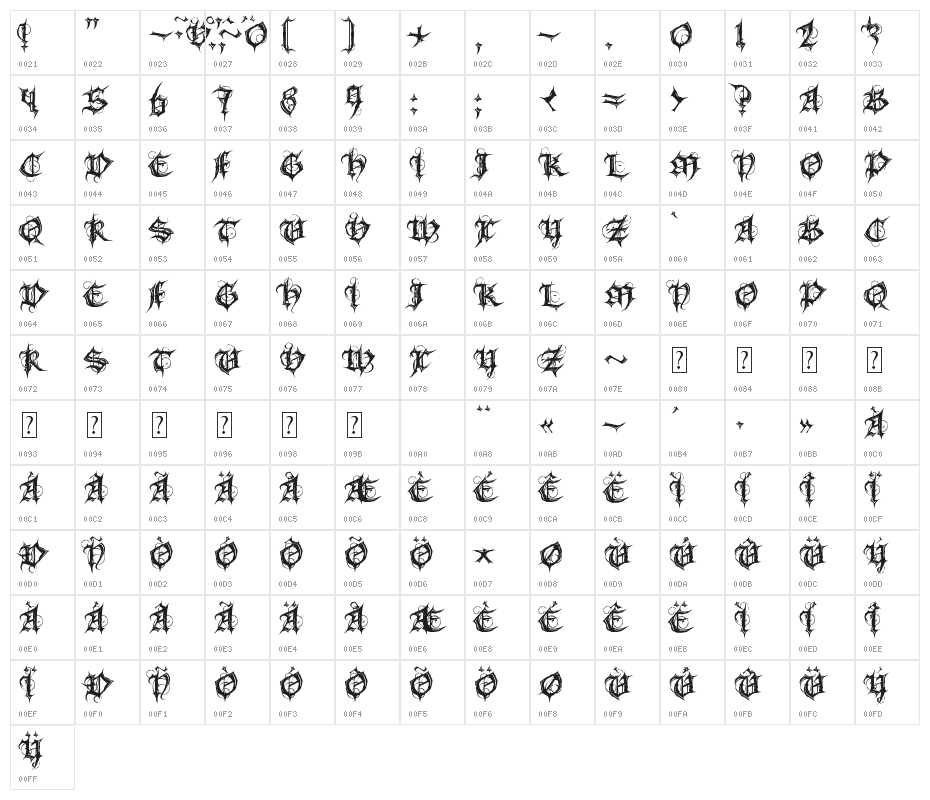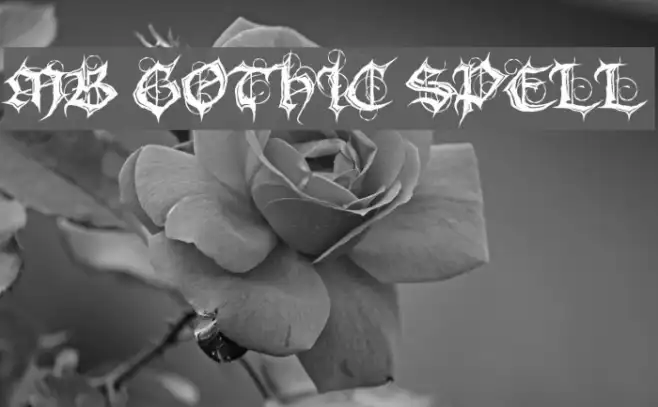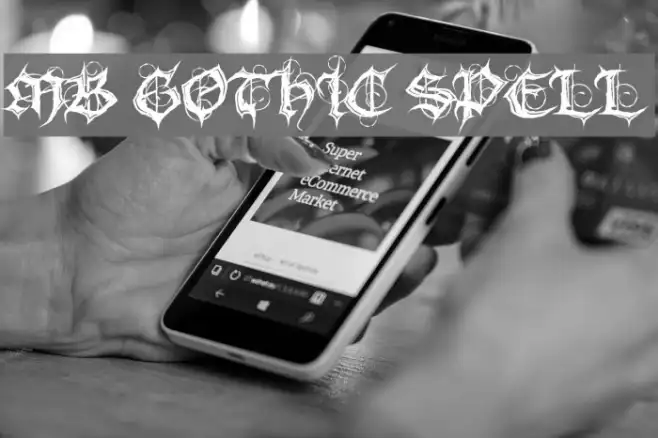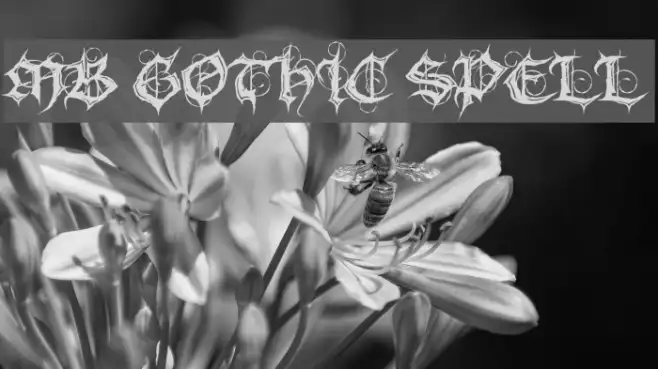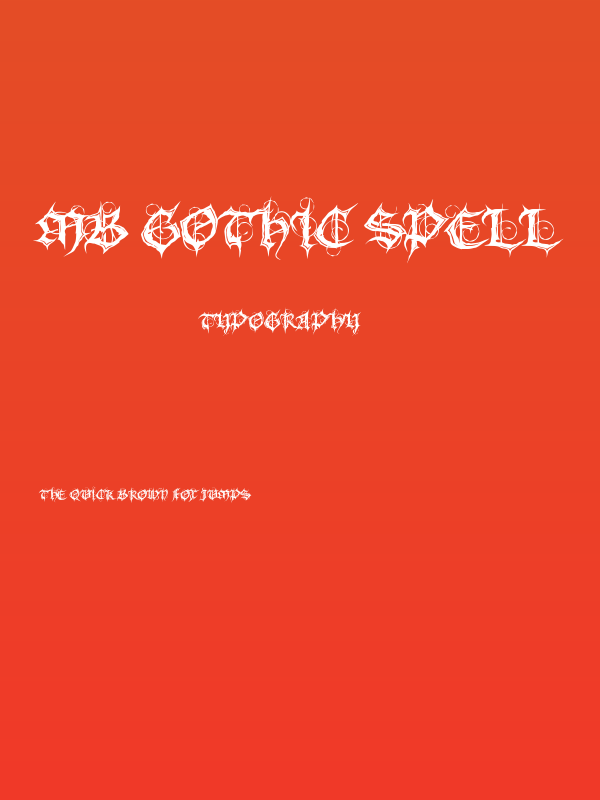
MB Gothic Spell Font
MB Gothic Spell Description
This font features an intricate and elaborate design with sharp, thorn-like embellishments that give it a distinctly gothic and mystical appearance. The characters are highly stylized with dramatic flourishes and pointed serifs, creating a sense of mystery and dark elegance. The uppercase and lowercase letters maintain a consistent style, with each character adorned with unique decorative elements that enhance the overall aesthetic. The numbers and special characters follow the same ornate design, ensuring a cohesive look across all glyphs. This font is perfect for projects that require a bold and captivating visual impact.
| Overall Style | Gothic, Decorative |
| Proposed Projects | Ideal for fantasy book covers, gothic-themed event posters, tattoo designs, and dark-themed branding. |